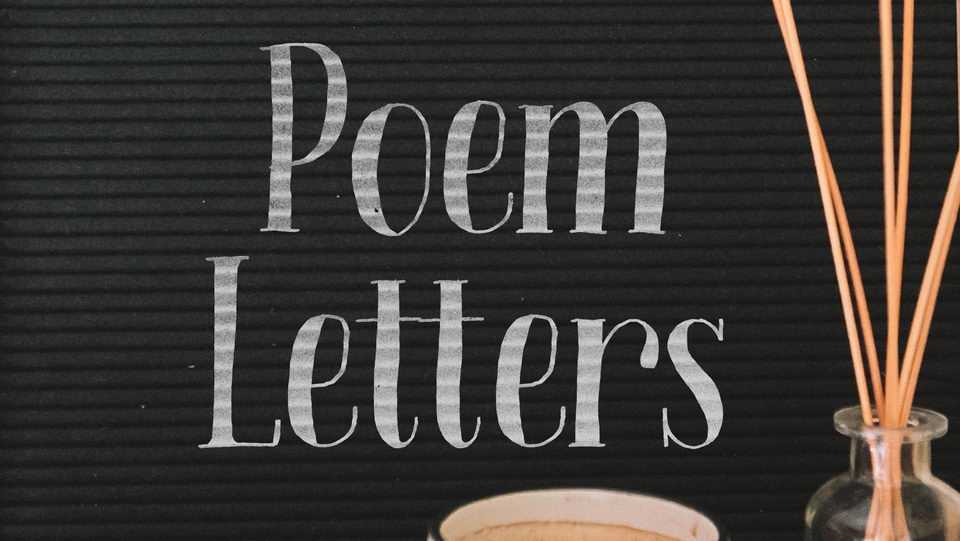
Download Poem Letters font a fancy handwritten serif typeface with high contrast characters. Poem Letters font is great for social media, quotes, cards, crafts, apparel and other creative projects.